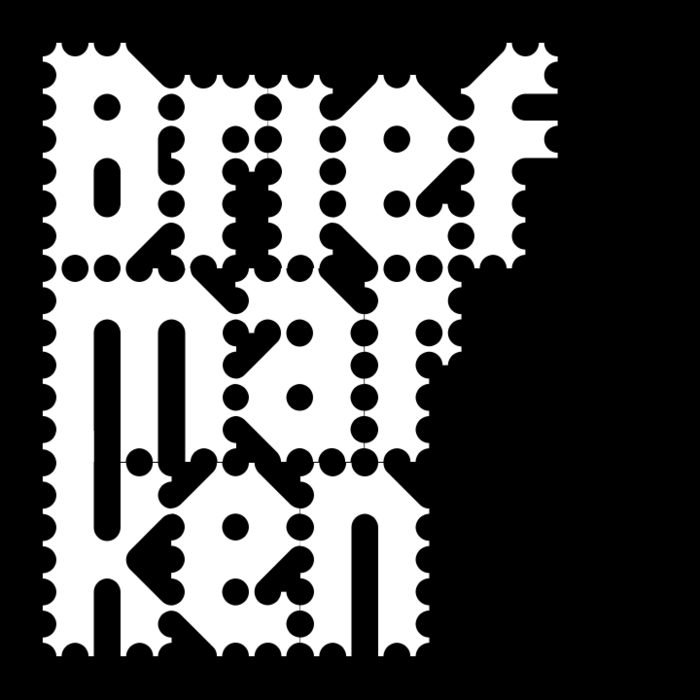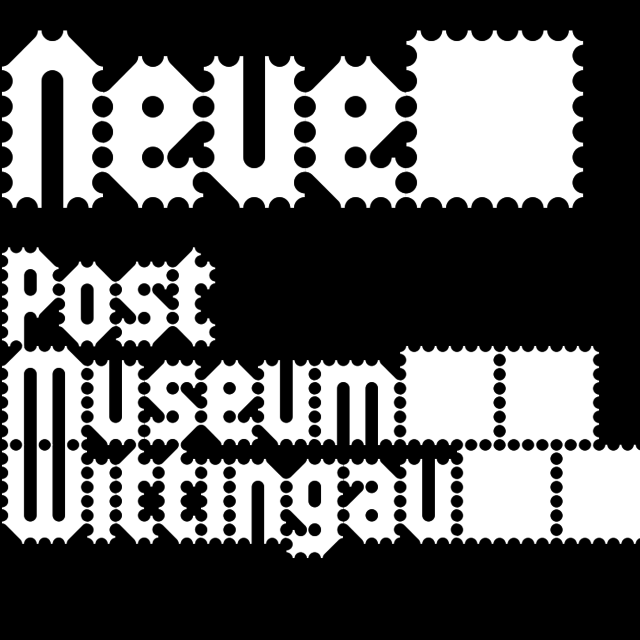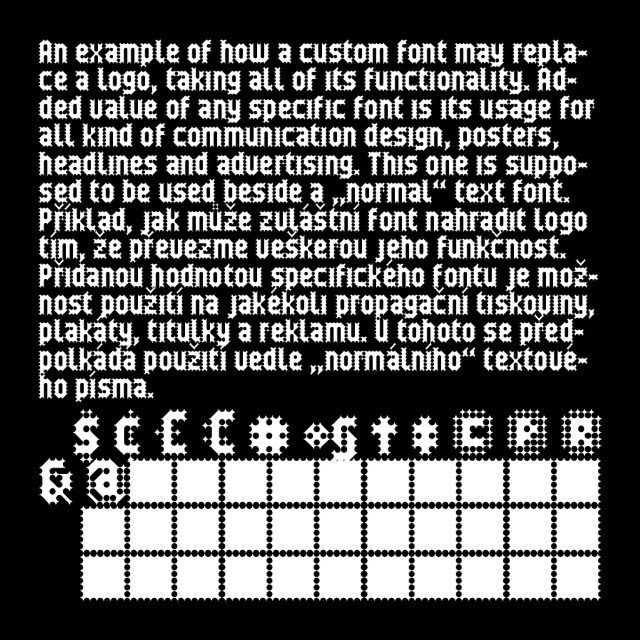
by František Štorm
An example of how a custom font may replace a logo, taking all of its functionality. Added value of any specific font is its usage for all kind of communication design, posters, headlines and advertising. This one is supposed to be used beside a "normal" text font.
Příklad, jak může zvláštní font nahradit logo tím, že převezme veškerou jeho funkčnost. Přidanou hodnotou specifického fontu je možnost použití na jakékoli propagační tiskoviny, plakáty, titulky a reklamu. U tohoto se předpolkádá použití vedle "normálního" textového písma.